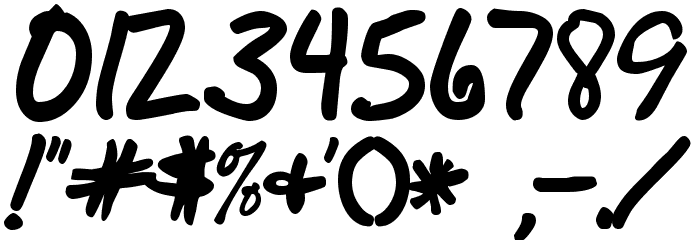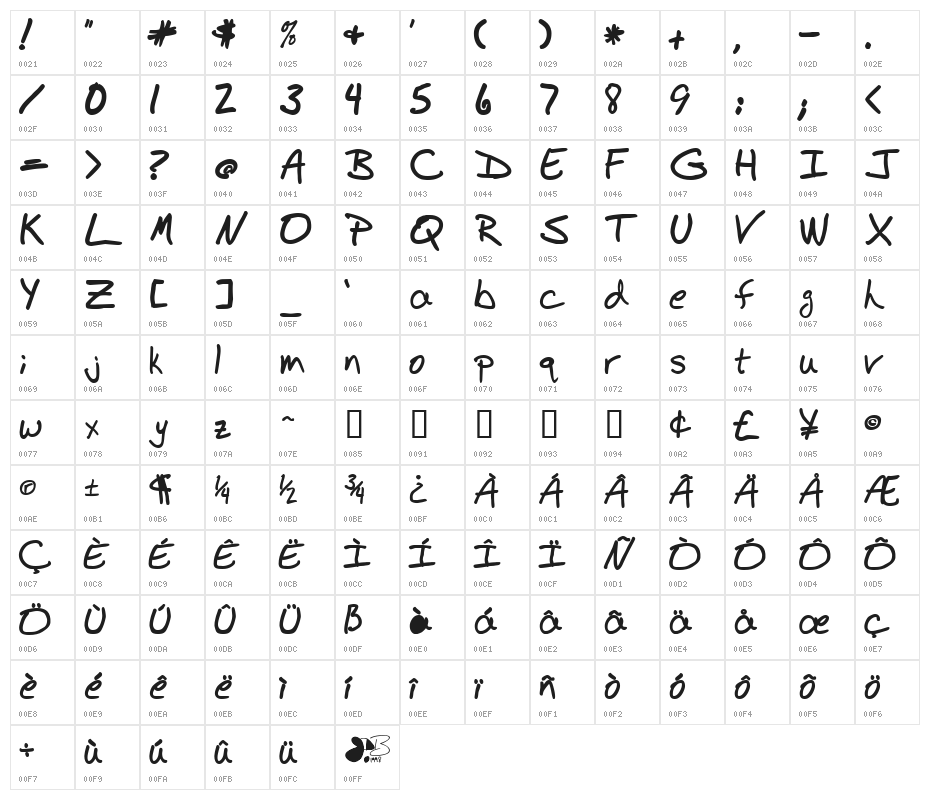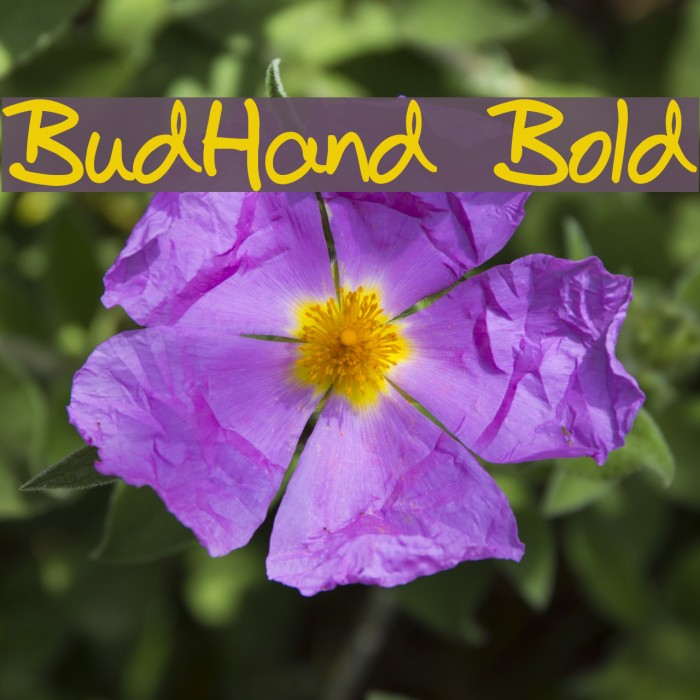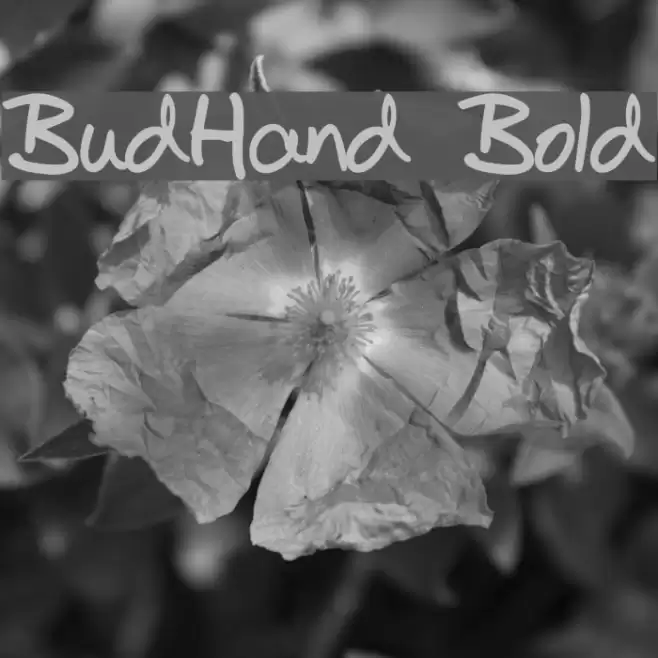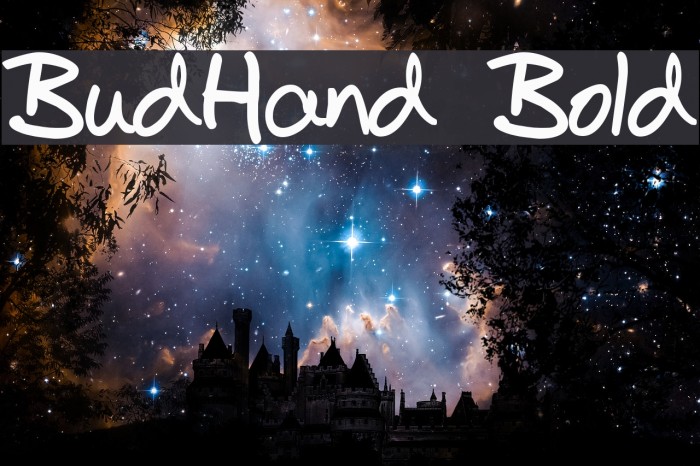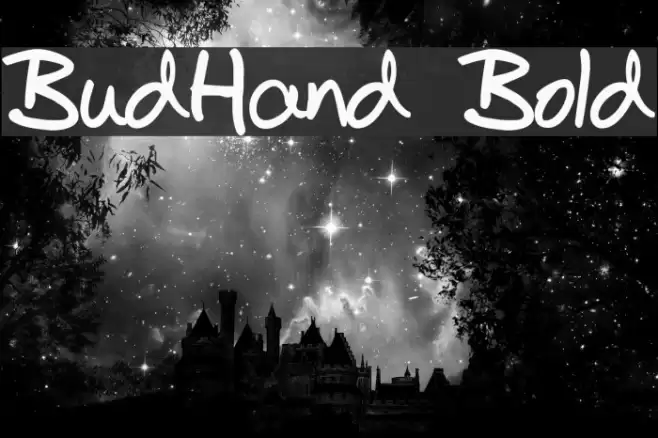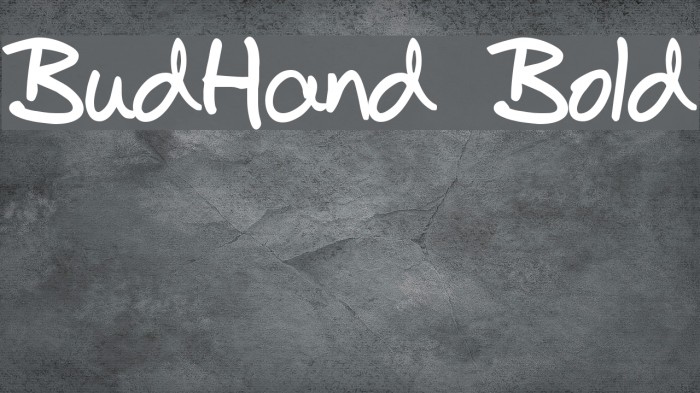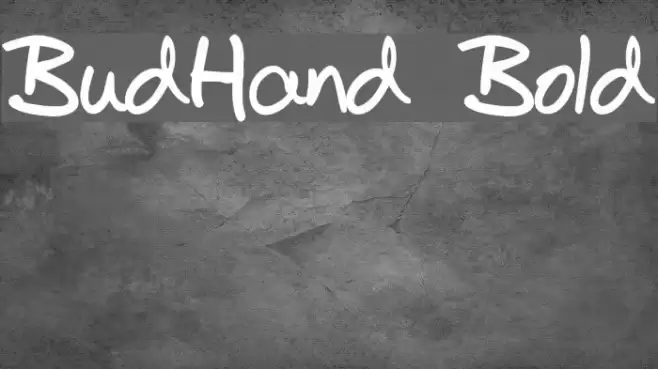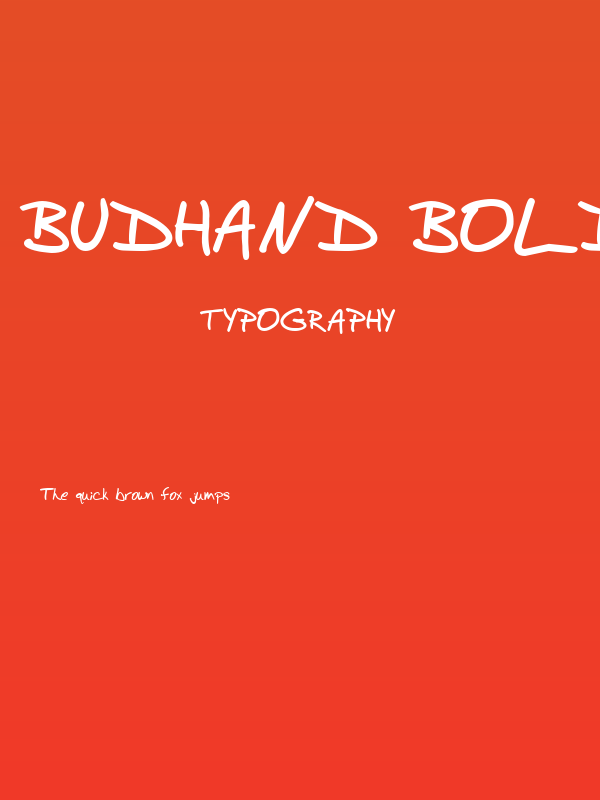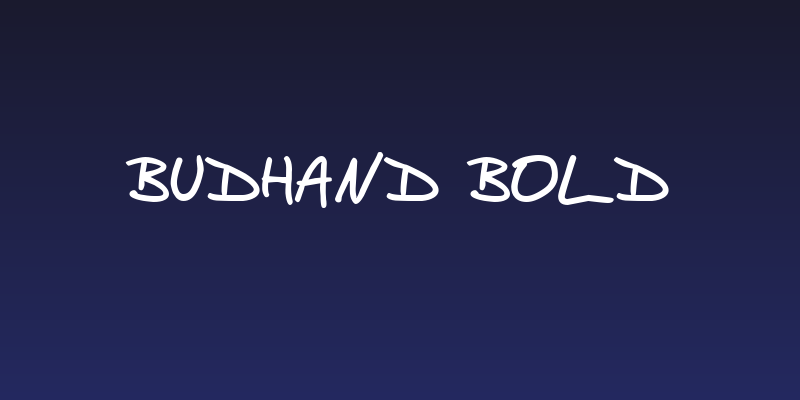
BudHand Bold Font
BudHand Bold Description
This font features a bold, handwritten style that exudes a casual and playful vibe. The letters are slightly irregular, mimicking the natural flow of handwriting. Uppercase and lowercase letters maintain a consistent thickness, while numbers and special characters are designed with the same boldness, ensuring uniformity across all elements. The strokes are rounded and smooth, giving the font a friendly and approachable appearance. This style is perfect for projects that require a personal touch or a relaxed aesthetic.
| Proposed Projects | Ideal for greeting cards, invitations, personal branding, and informal marketing materials. |